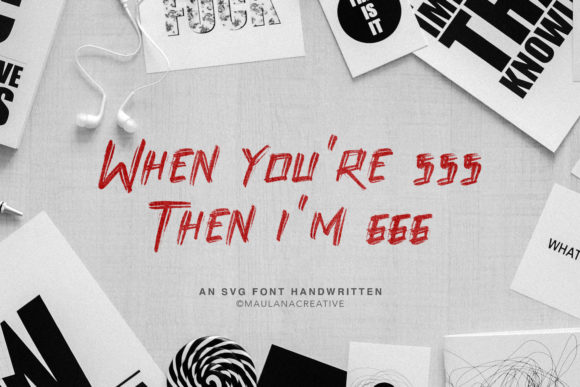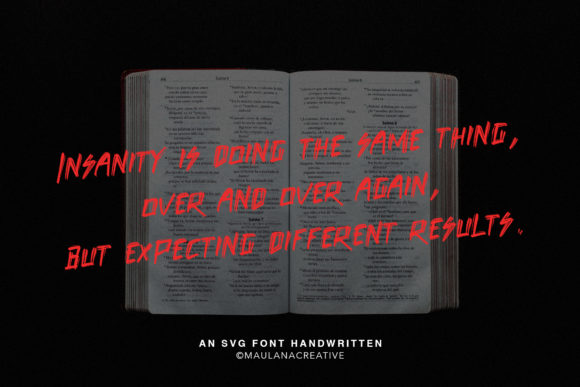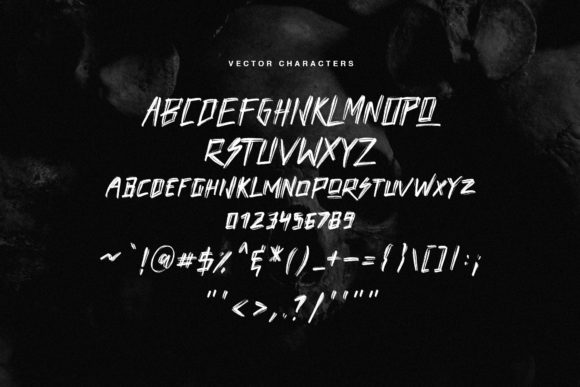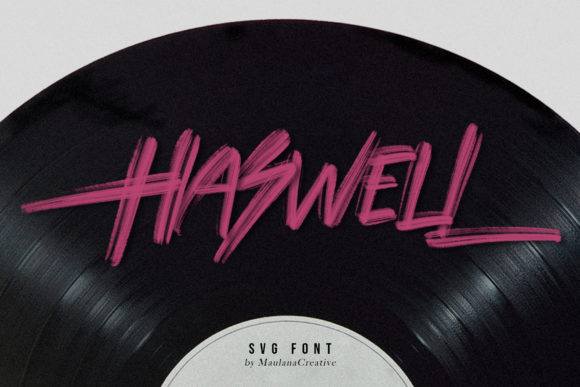
Introducing Haswell Font: The Perfect Handwritten Brush Font for Designers and Crafters
Are you a designer or crafter looking for a unique and stylish font to elevate your creative projects? Look no further than Haswell Font, a beautiful handwritten brush font that is perfect for signatures, logos, branding, packaging, and more. In this article, we’ll take a closer look at Haswell Font, its features, and how you can use it to add a personal touch to your designs.
What is Haswell Font?
Haswell Font is a handwritten brush font that is designed to give your projects a personal and artistic touch. It features beautiful, flowing strokes that are reminiscent of traditional brush calligraphy. The font is highly legible and versatile, making it suitable for a wide range of applications, from logos and branding to packaging and signage.
Key Features of Haswell Font
- Handwritten brush style: Haswell Font features a unique handwritten brush style that gives it a personal and artistic feel.
- Highly legible: The font is designed to be highly legible, making it easy to read and understand.
- Versatile: Haswell Font is suitable for a wide range of applications, from logos and branding to packaging and signage.
Uses for Haswell Font
Haswell Font is a versatile font that can be used for a wide range of applications, including:
- Signatures: Add a personal touch to your signatures with Haswell Font.
- Logos: Create unique and memorable logos for your business or brand.
- Branding: Use Haswell Font to create consistent branding across all your marketing materials.
- Packaging: Add a touch of elegance to your packaging with Haswell Font.
- Signage: Use Haswell Font to create eye-catching signage for your business or event.
Tips for Using Haswell Font
Here are a few tips for using Haswell Font effectively:
- Use it sparingly: Haswell Font is a statement font, so use it sparingly to add emphasis to your designs.
- Experiment with colors: Haswell Font looks great in a variety of colors, so experiment with different colors to find the one that works best for your design.
- Pair it with other fonts: Haswell Font pairs well with other fonts, so try pairing it with a sans-serif font for added contrast.
Haswell Font is a beautiful handwritten brush font that is perfect for designers and crafters looking to add a personal touch to their projects. With its highly legible and versatile design, Haswell Font is suitable for a wide range of applications, from logos and branding to packaging and signage. Whether you’re a seasoned designer or just starting out, Haswell Font is a great addition to your font library.
Overall, Haswell Font is a great choice for anyone looking to add a personal and artistic touch to their designs. With its beautiful handwritten brush style and versatile design, it’s sure to become a favorite font in your collection.